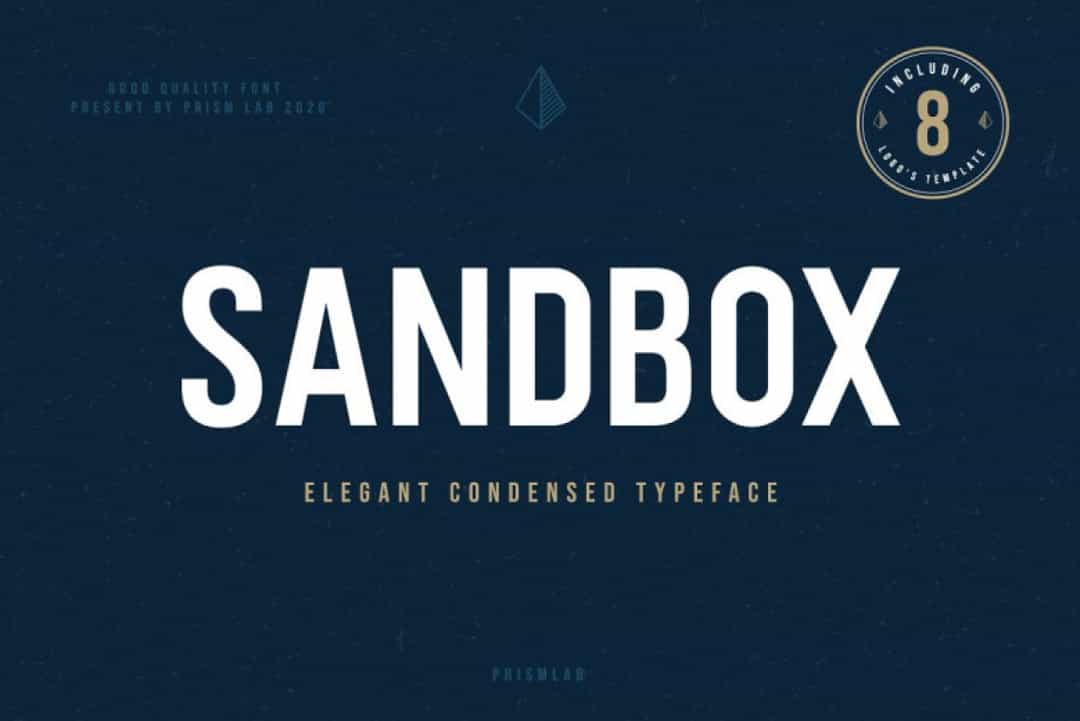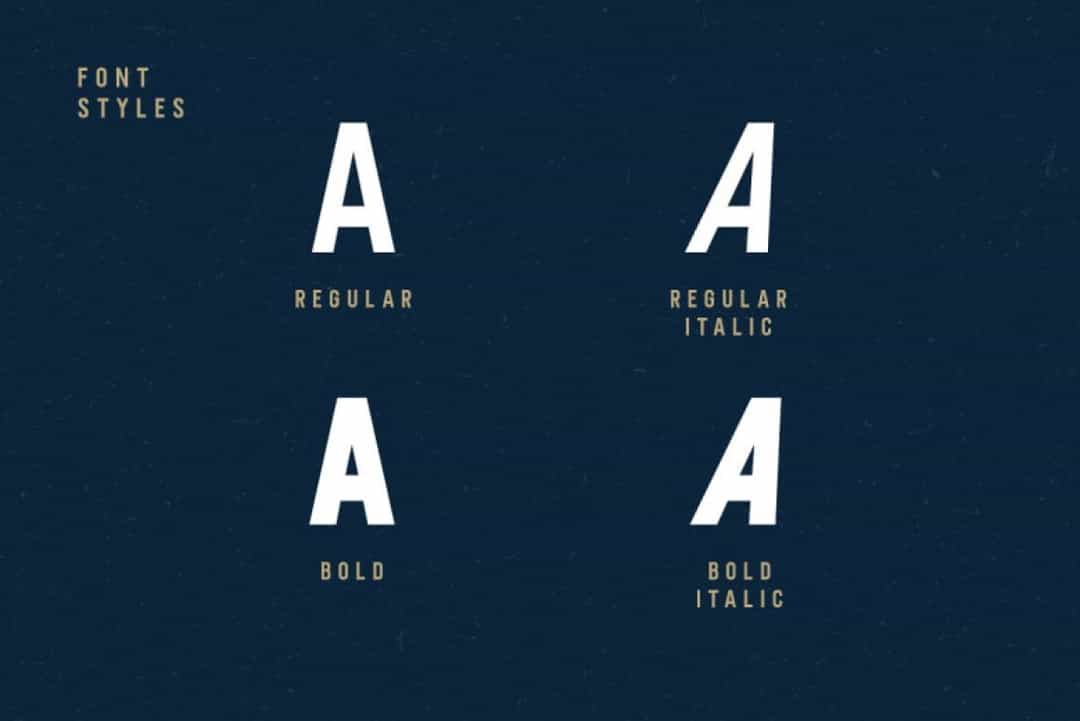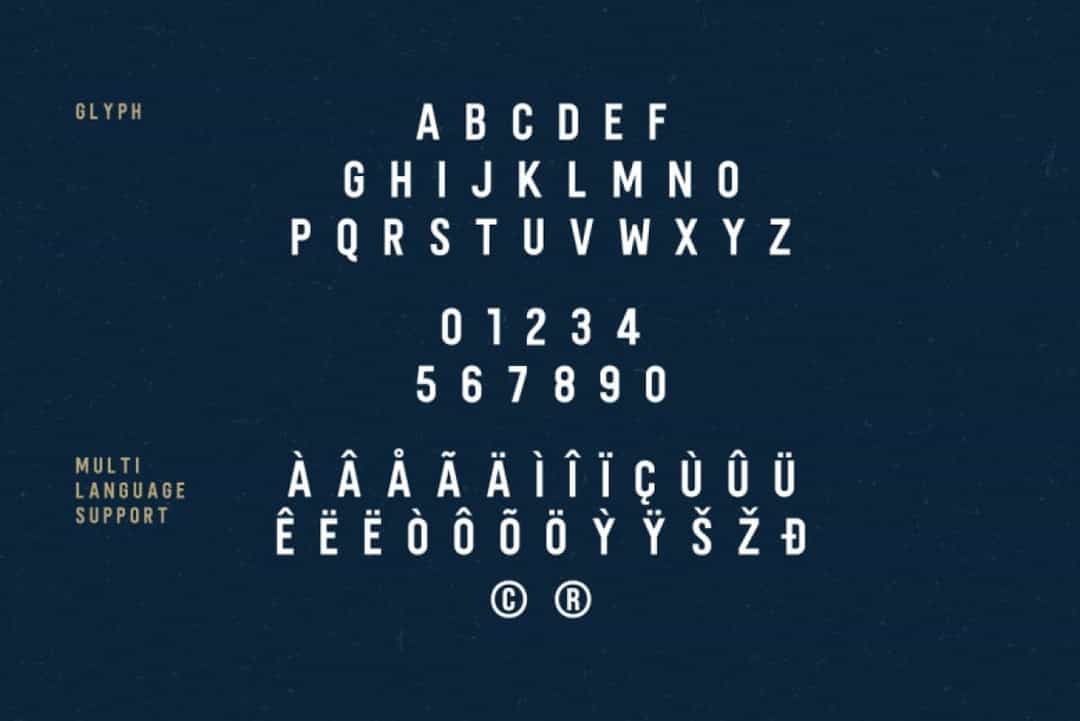
The Sandbox Typeface is a completely new font. Closely based on the characters with clear personality and smooth texture, Sandbox is a minimalistic sans-serif font suitable for today’s businesses and start-ups.